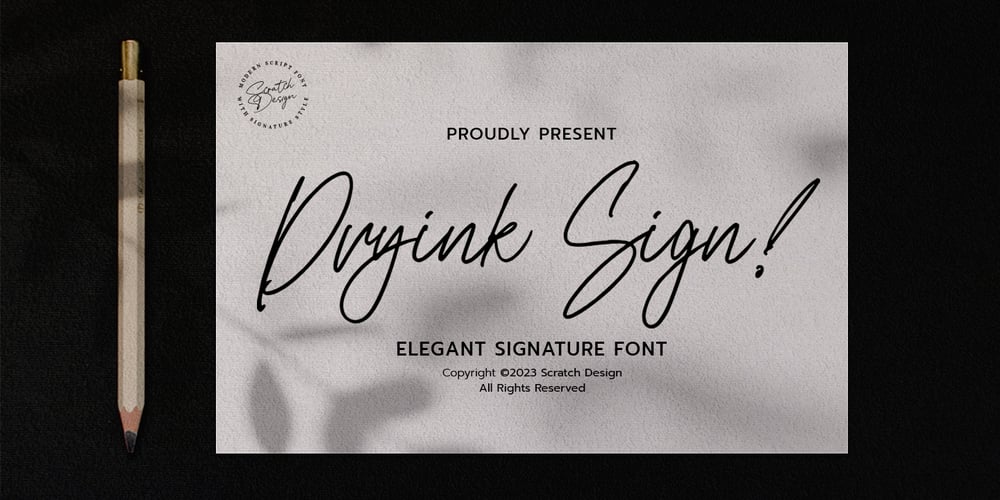
Dryink Sign
Dryink Sign Font Family was designed by Gitayogi Irhandi and published by Scratch Design. Dryink Sign contains 1 styles and family package options. Introducing, Dryink Sign! An elegant signature with monoline style. This font consisting of a fashionable sophisticated signature-style script with an elegant inky flow.Dryink Sign! is perfect font for your logo, branding projects, wedding designs, branding, social media posts, product packaging, product designs, label, photography, watermark, invitation, advertisements, stationery, headline of magazine, website and any projects that need an elegant handwriting taste. This font comes with upper and lowercase Characters, Numerals, Marks, Punctuation, alternates, swashes, ligatures and support for multi languages.Hope you enjoy our font and we believe this font will give you the best for your design!Thank you for checking and visiting our store, and feel free to drop me a message if you had any questions!